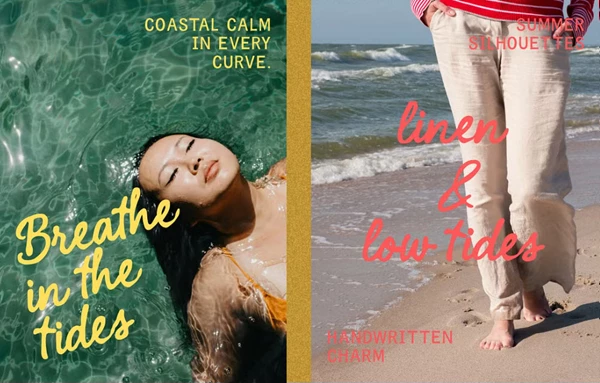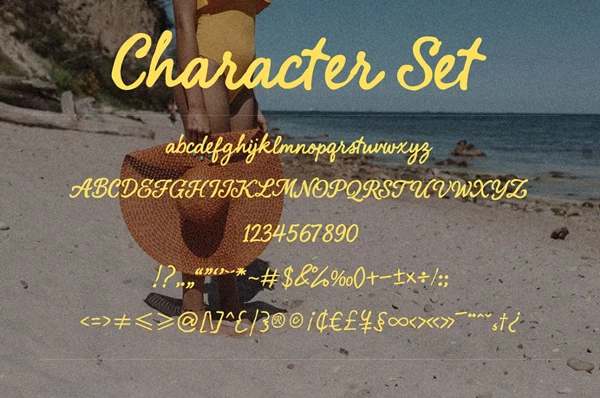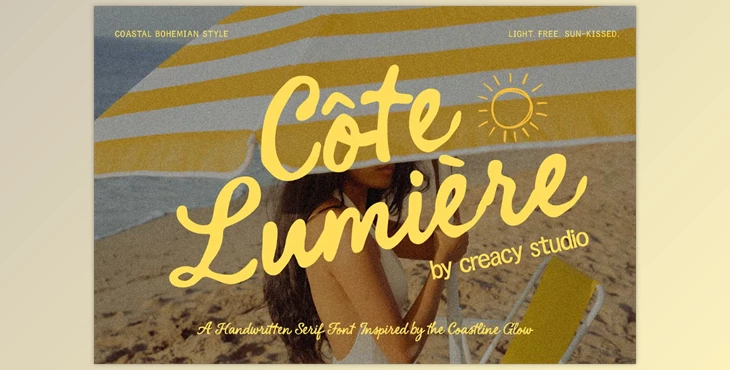
Cote Lumiere – Coastal Script Font:
Côte Lumière is an enchanting handwritten script font based on the peaceful and bohemian coastal life. Its liquid curves evoke the relaxed essence of seaside summers. This makes Côte Poignée a perfect font for adding effortless elegance to any design project.
The typeface can effortlessly brand a beach bar or boutique, skincare packaging, inviting book covers, lifestyle quotes, travel journal embellishments, evocative narrative prose, and even créme brûlée. With full character set support including uppercase and lowercase script letters, numbers, punctuation marks, over thirty Latin-based languages and offered in both TTF and OTF formats, flexibility is at hand for all design needs.
Ideal Uses
- Branding for coastal businesses.
- Posters and package design for summer themes.
- Crafting handwritten illustrations of inspirational sayings.
- Personalizing social media content.